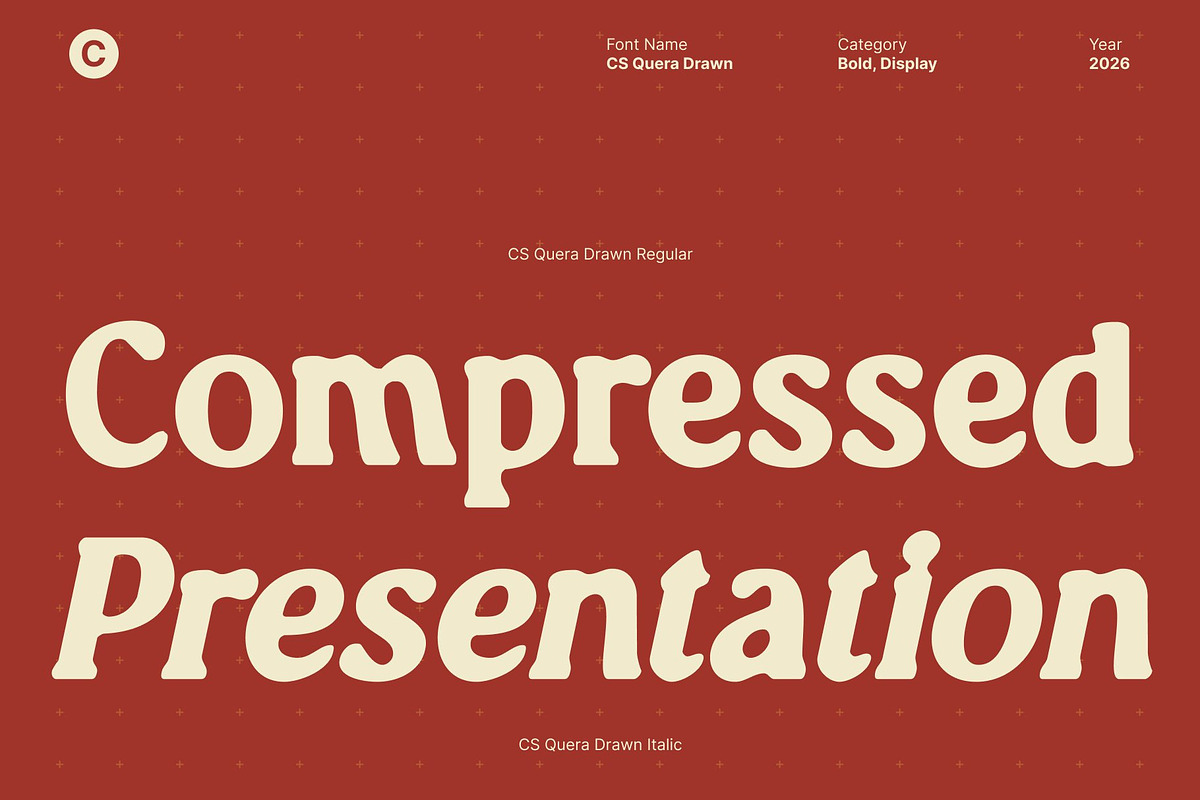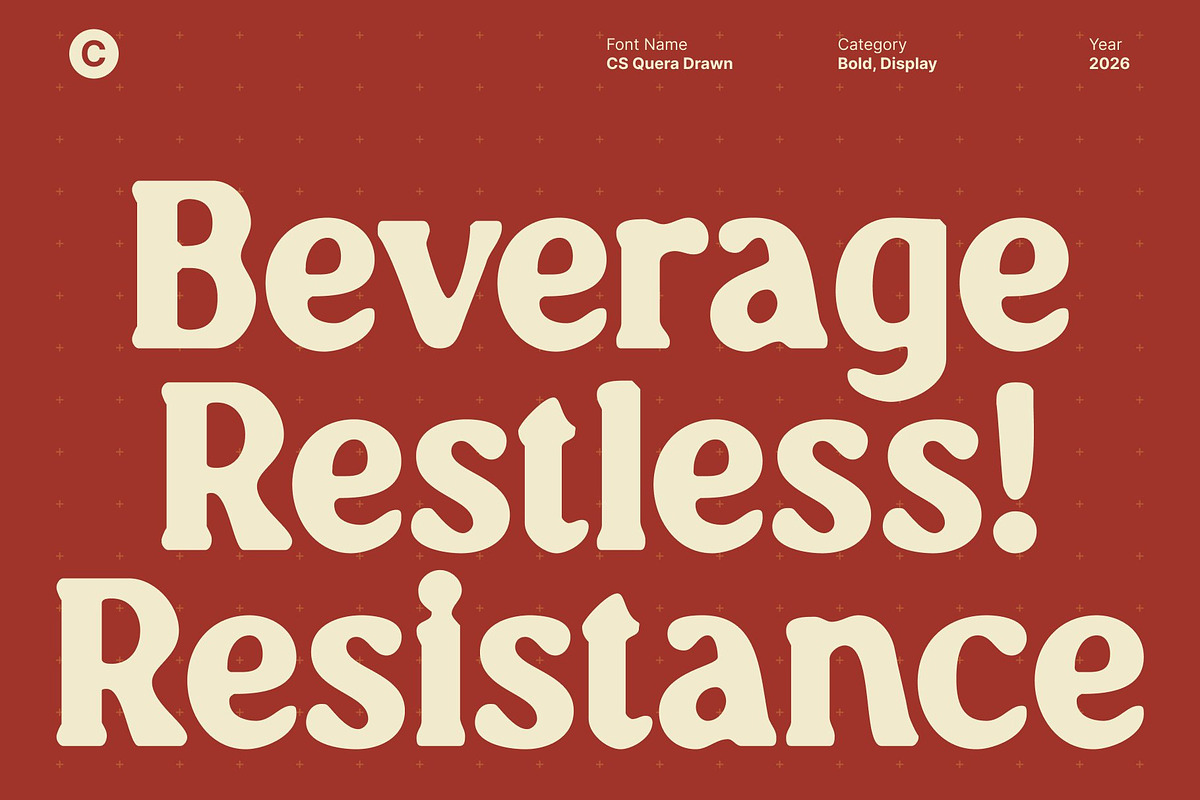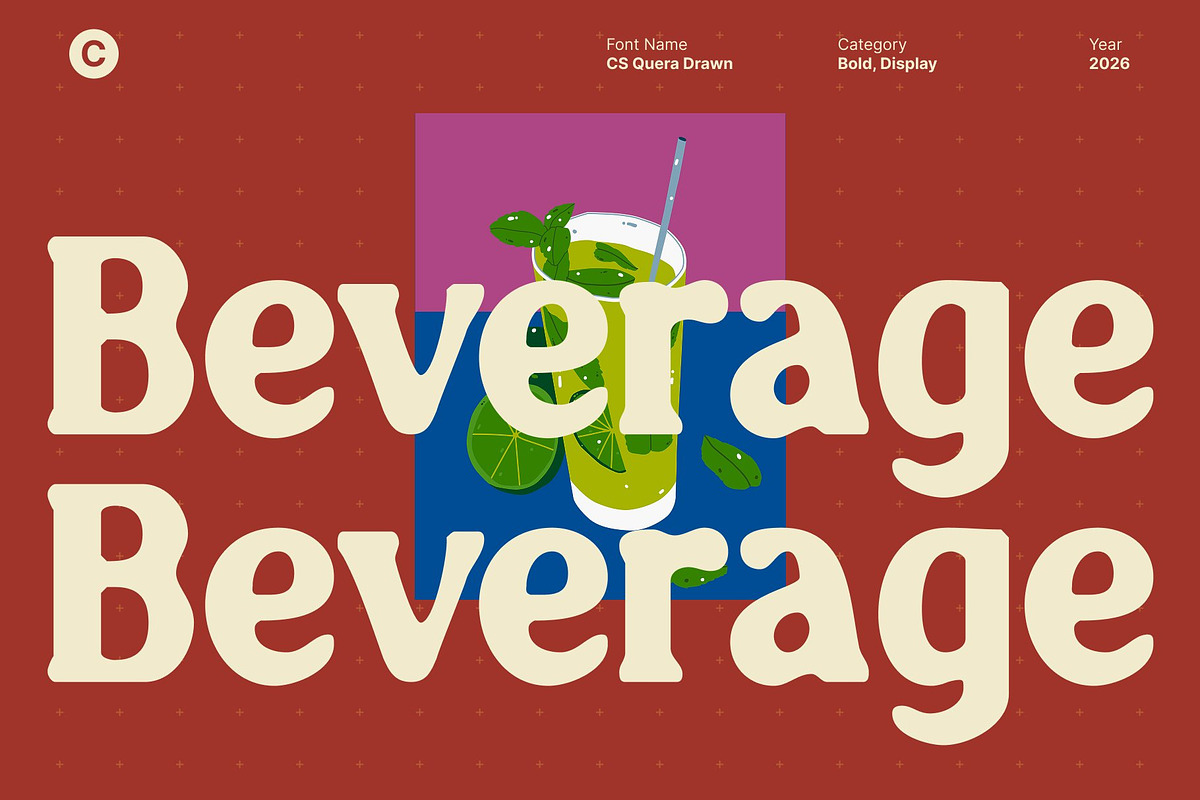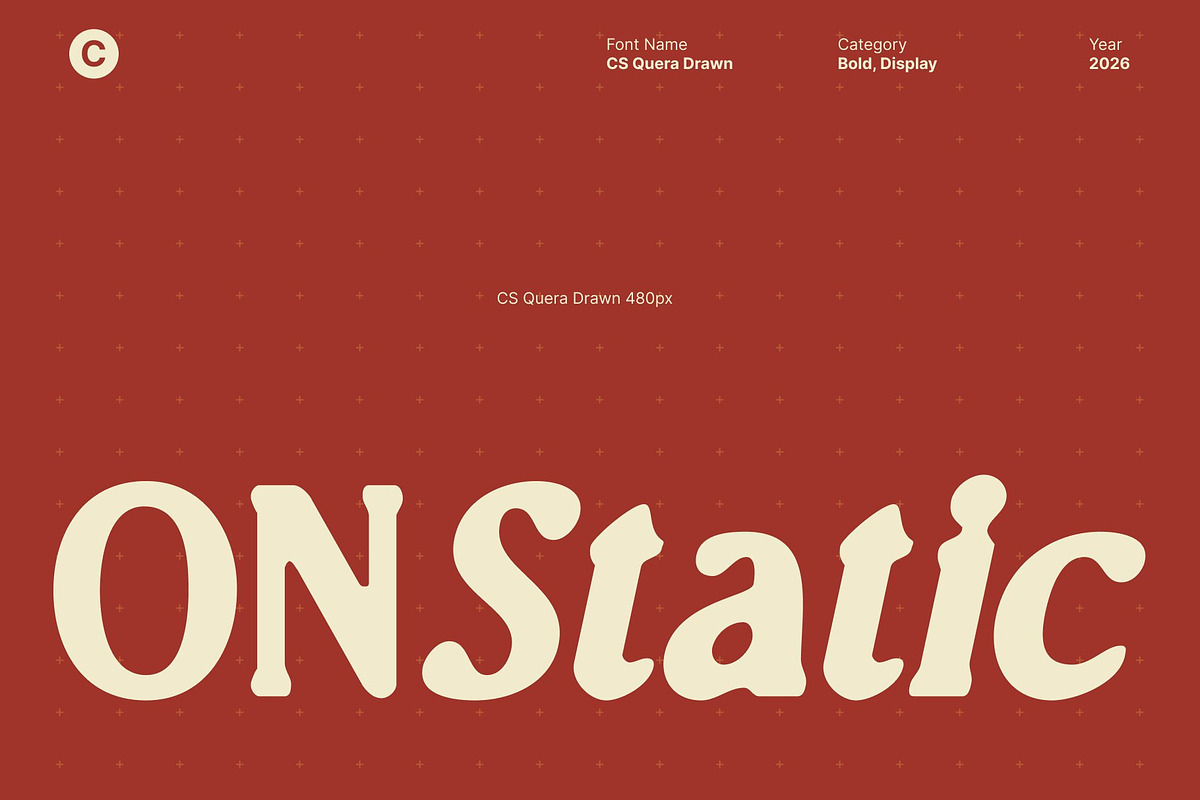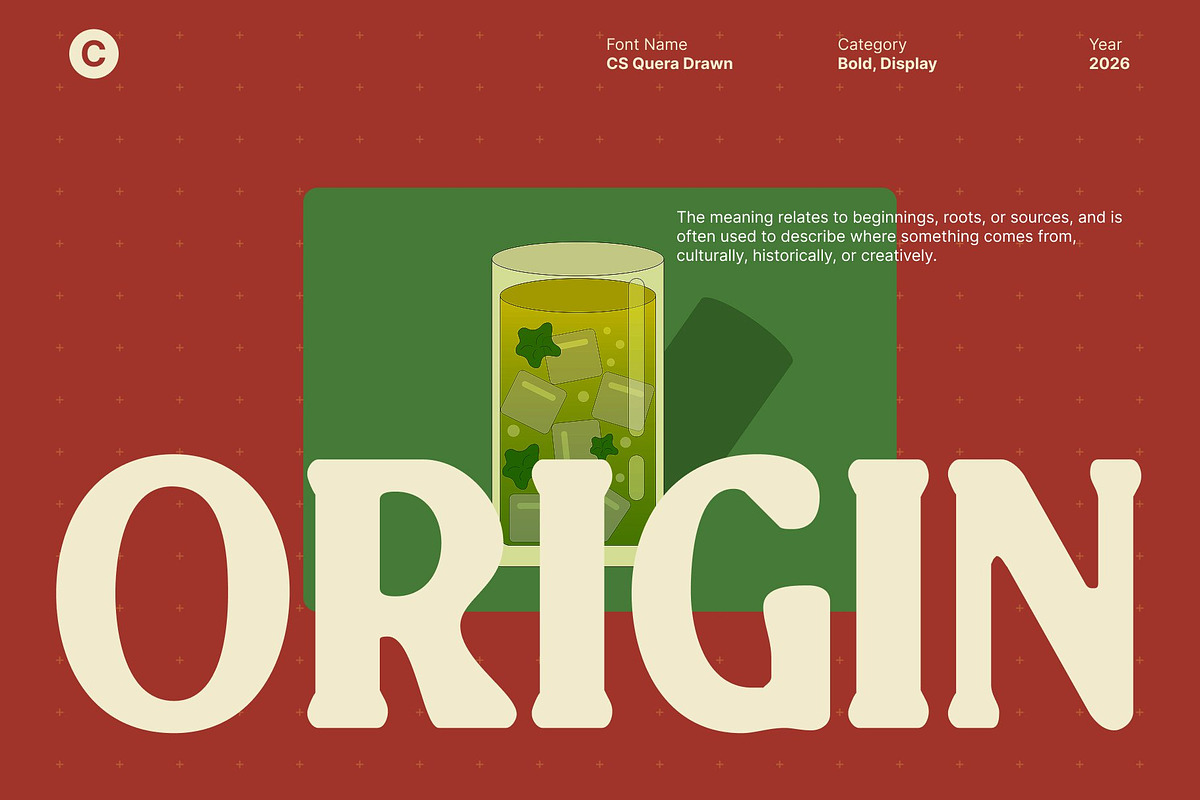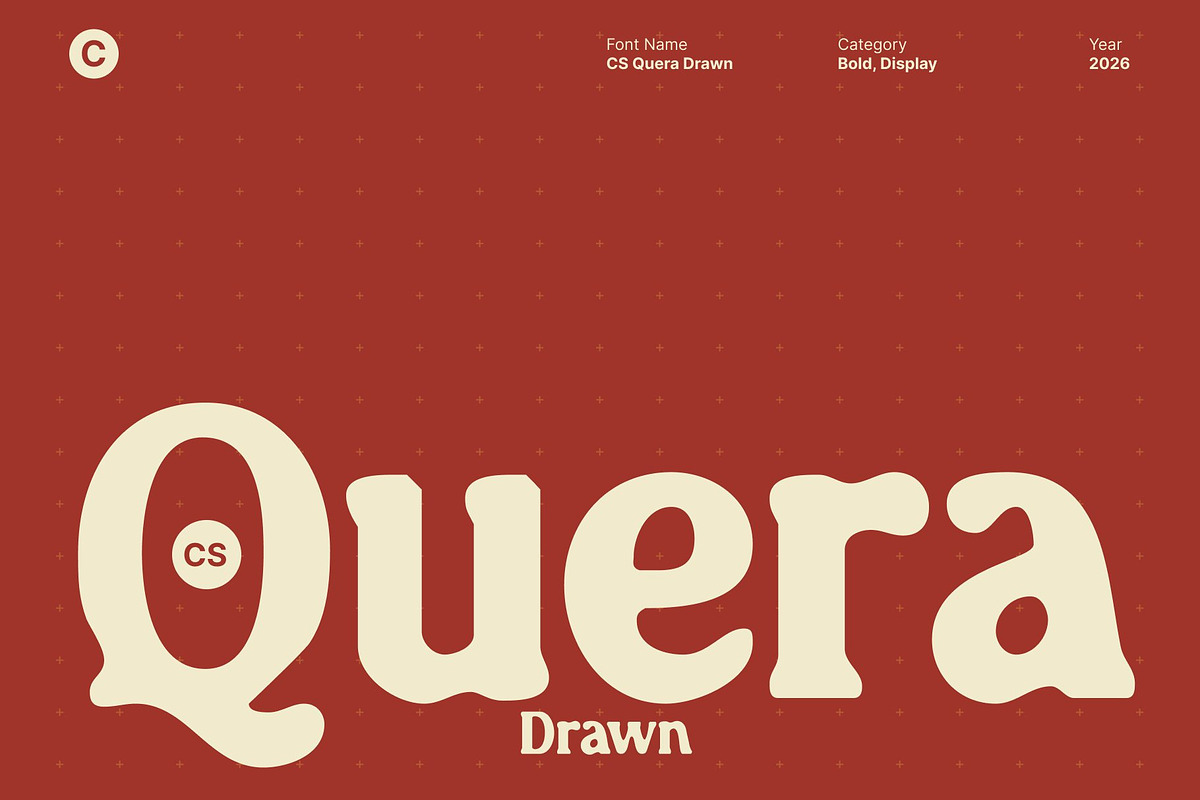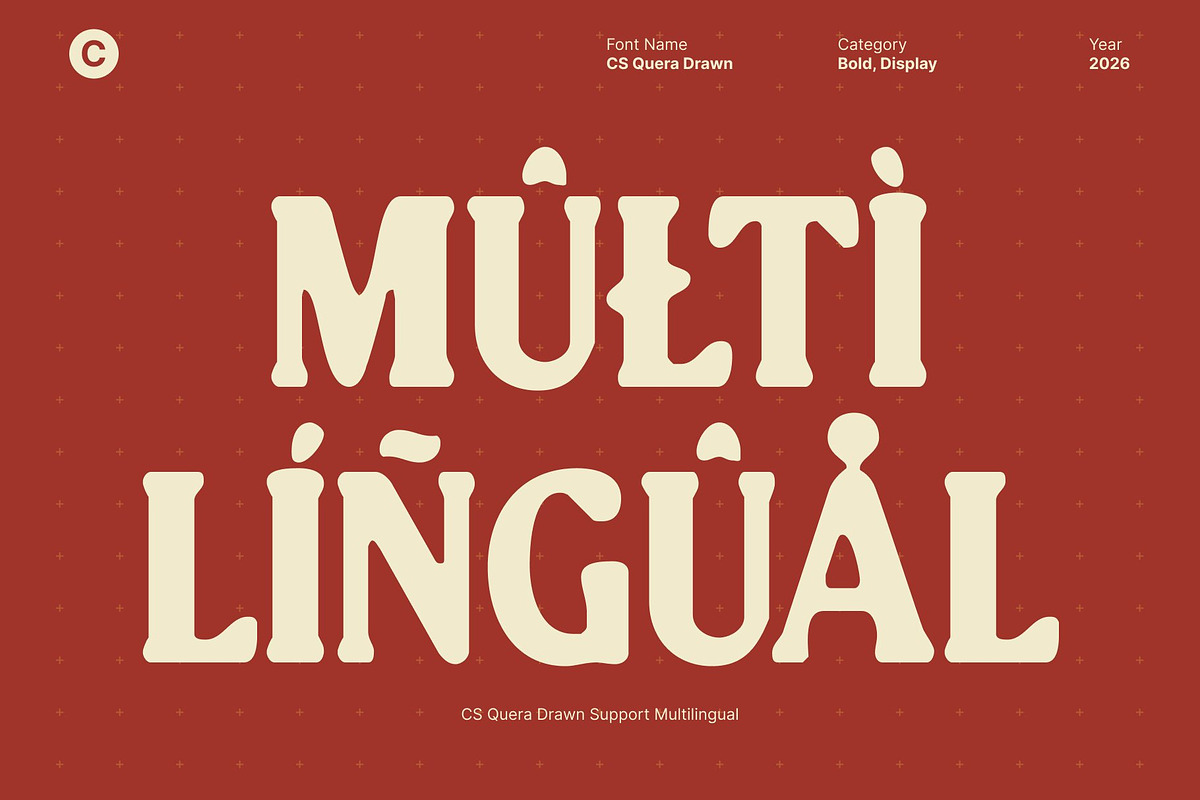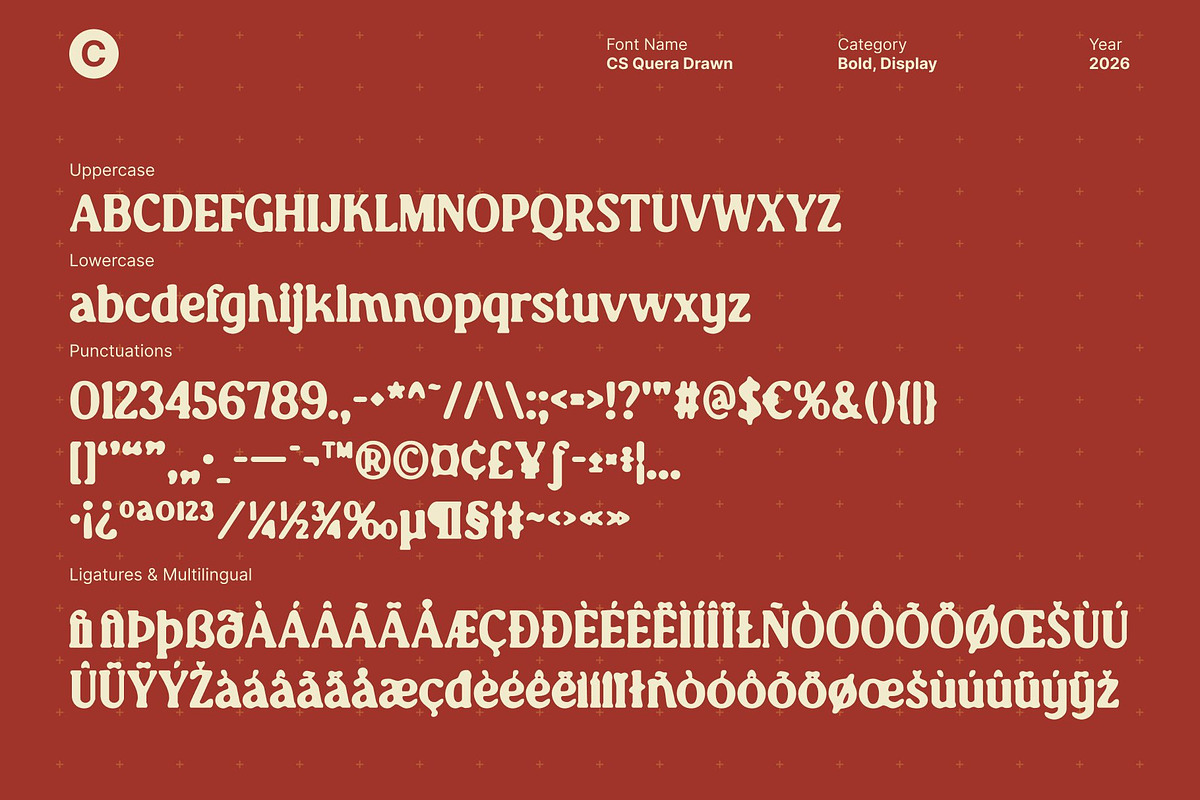
CS Quera Drawn
CS Quera Drawn – Bold Serif Font with Retro Flair and Hand-Drawn Character
Striking Bold Typography with Commanding Presence This is a bold serif display font crafted to grab attention with confidence. Its thick, assertive letterforms deliver a strong visual impact, while the drawn effect adds subtle personality and texture, giving the font a lively, handcrafted feel that enhances its boldness.
Retro-Inspired Design with Nostalgic Energy Drawing inspiration from classic typography, this font brings a nostalgic retro charm without sacrificing modern appeal. Its timeless shapes combined with hand-drawn quirks create a font that feels both familiar and fresh, adding character and warmth to every layout.
Powerful, Readable, and Eye-Catching Built for visibility, the font’s strong structure ensures clarity across headlines, posters, branding, and editorial layouts. Its confident weight and refined forms make it a dependable choice for projects that need to make a bold statement while retaining readability.
Perfect for Retro Branding, Posters, and Headlines Ideal for retro-inspired branding, striking posters, dynamic headlines, and social media visuals, this font combines bold impact with playful personality. Its versatility allows it to shine across both print and digital designs, bridging modern authority with vintage charm.